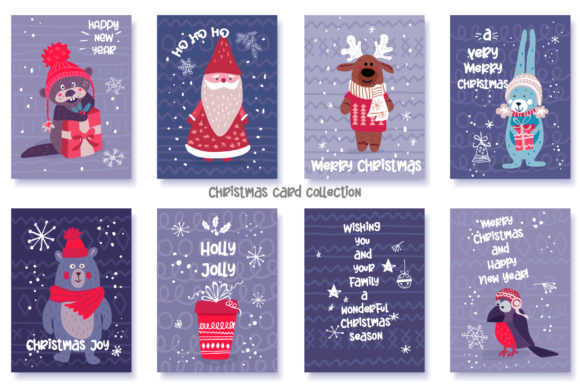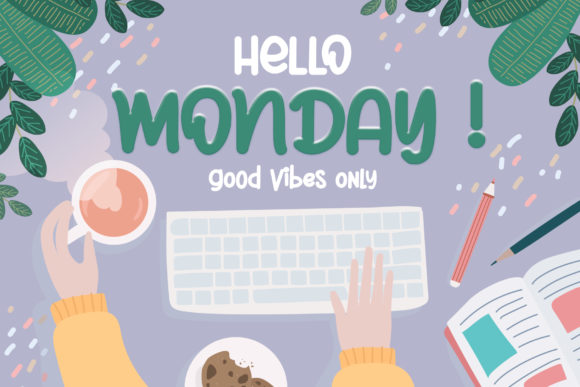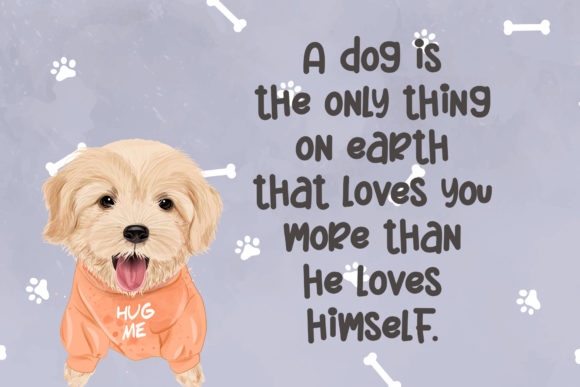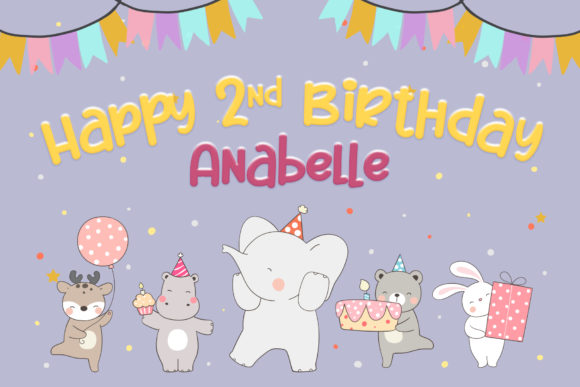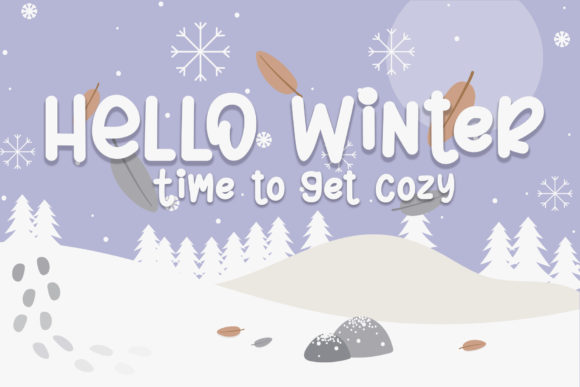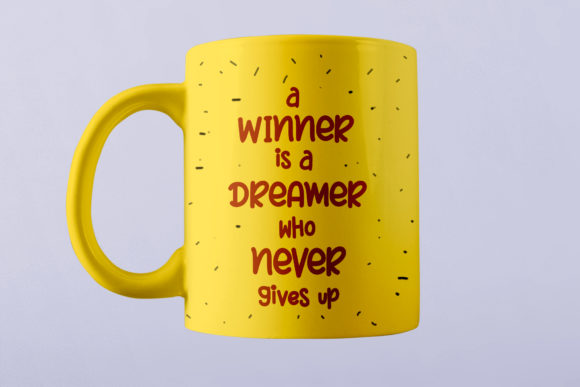
Introduction to Christmas Sheep Font
Christmas Sheep is a modern and cute handwritten font.
It embodies playfulness and authenticity and is the perfect choice for any children activity, school project or Christmas letter .
Key Features of Christmas Sheep Font
Why Choose Christmas Sheep Font?